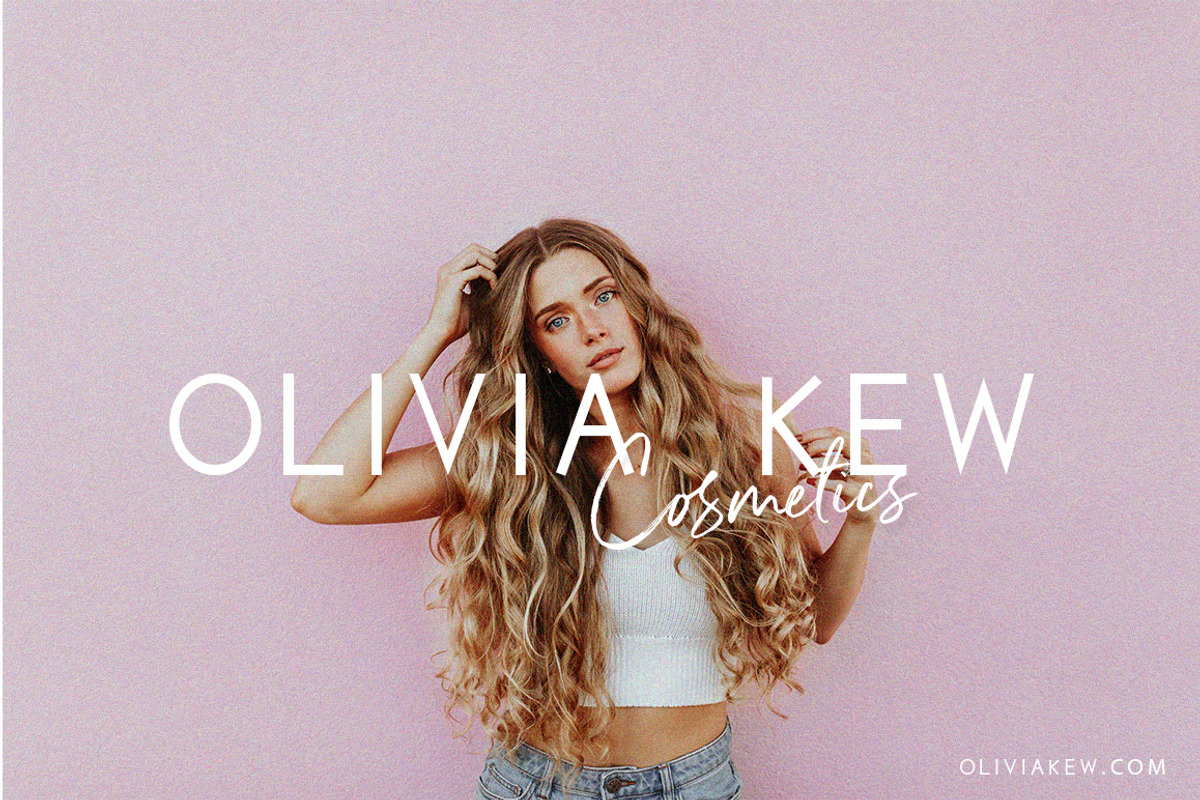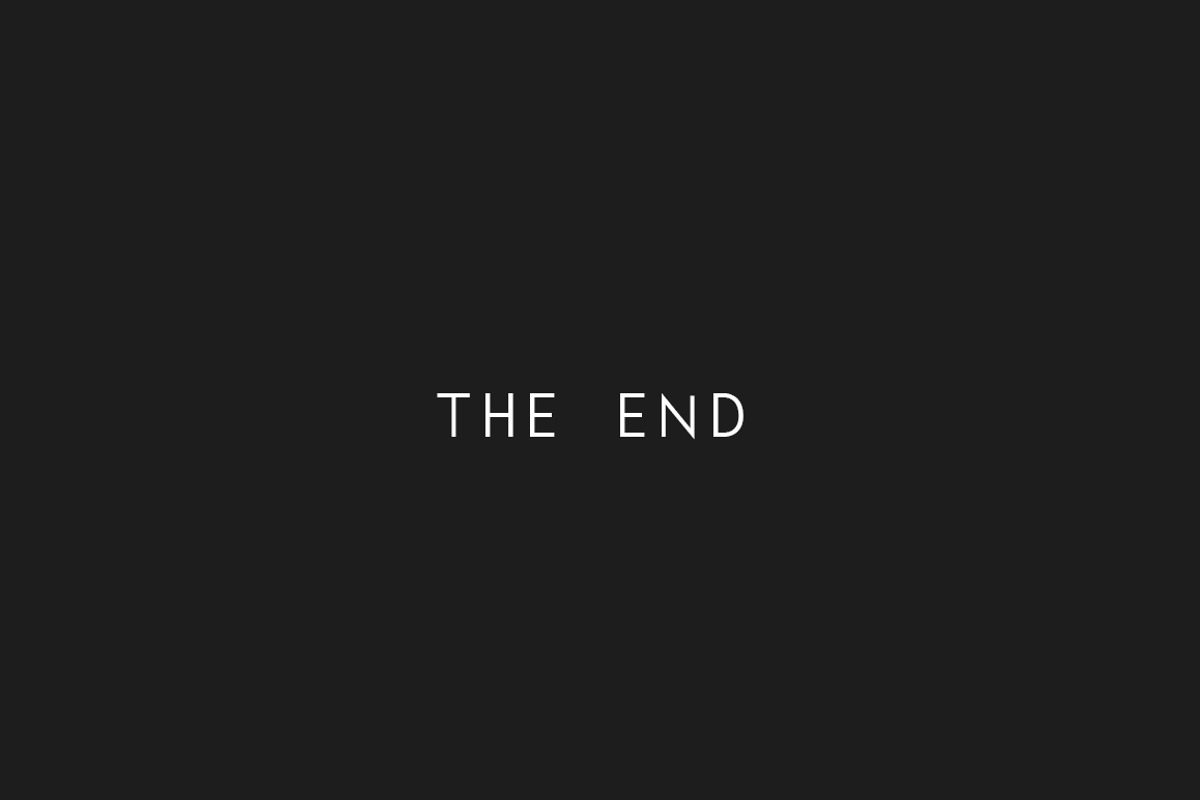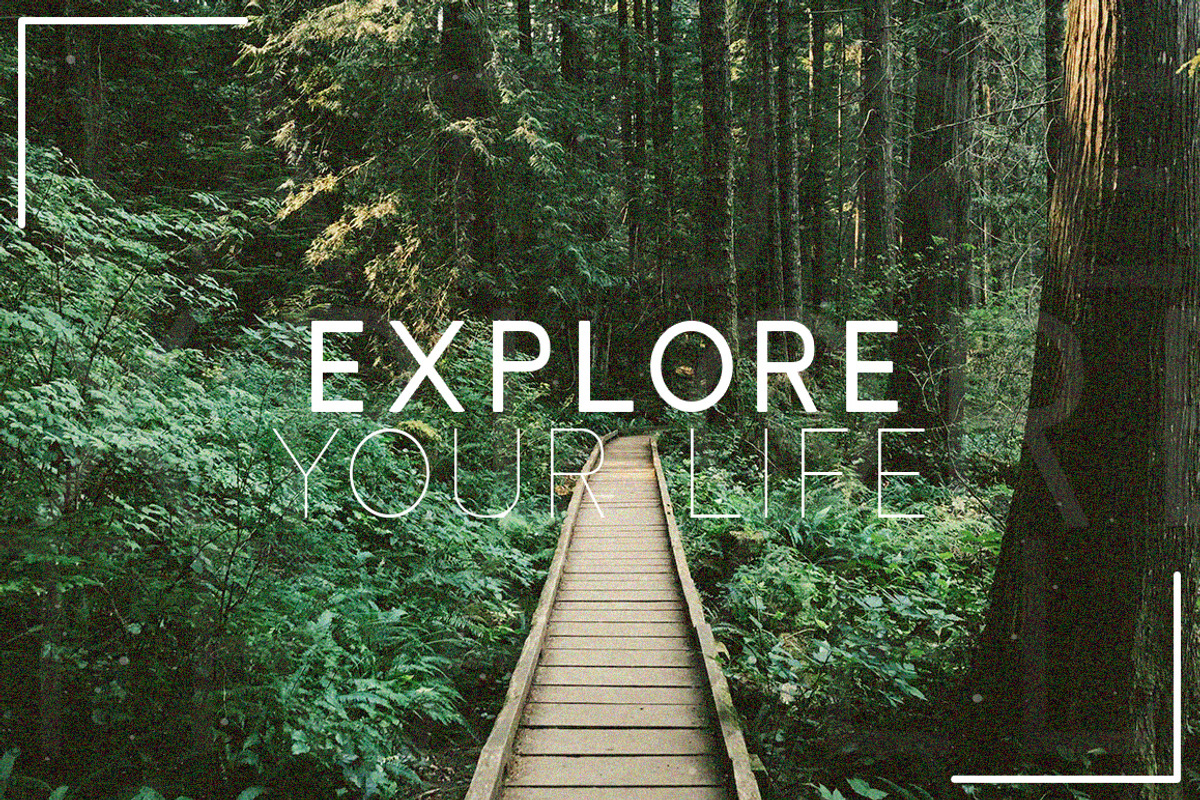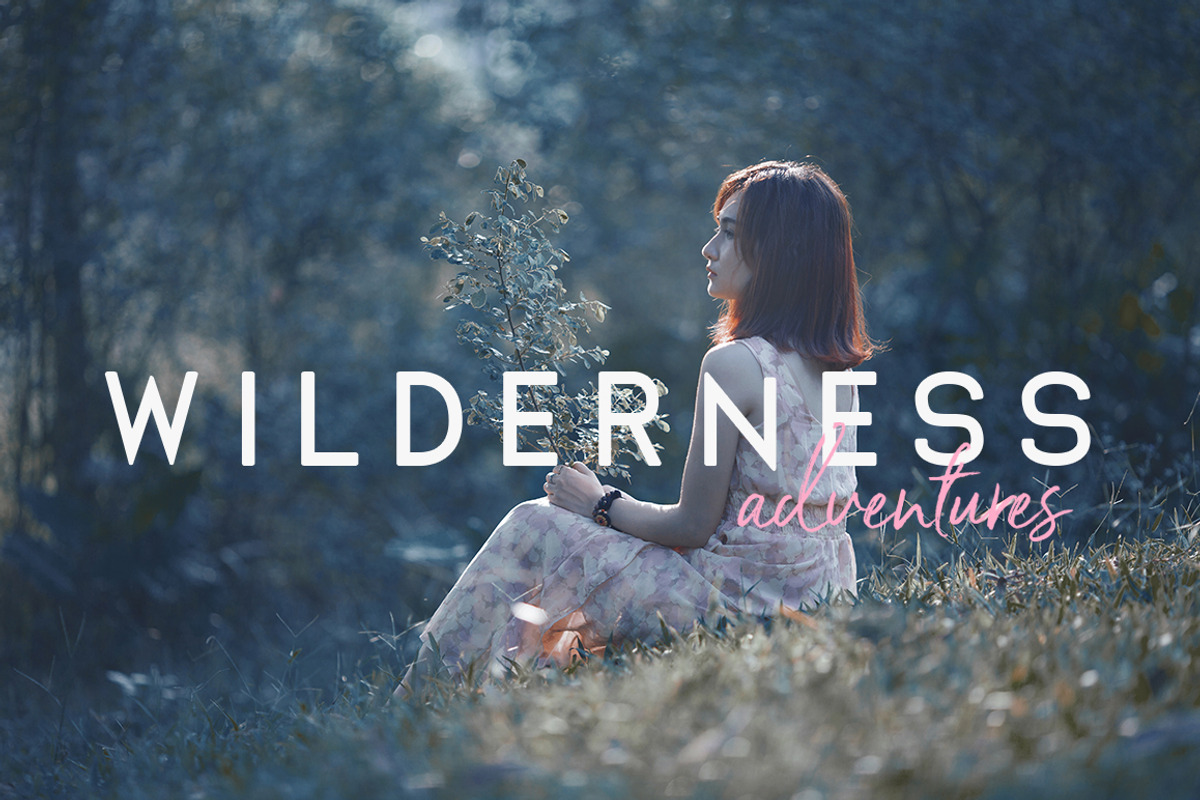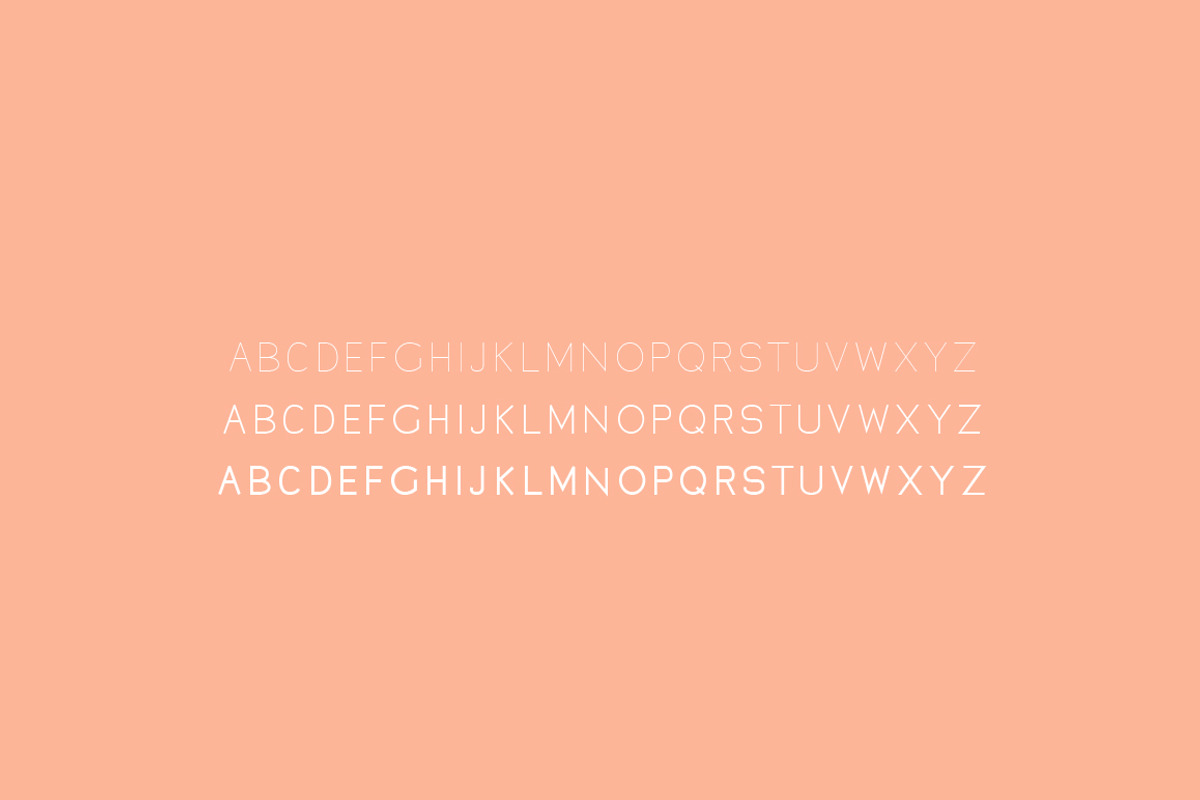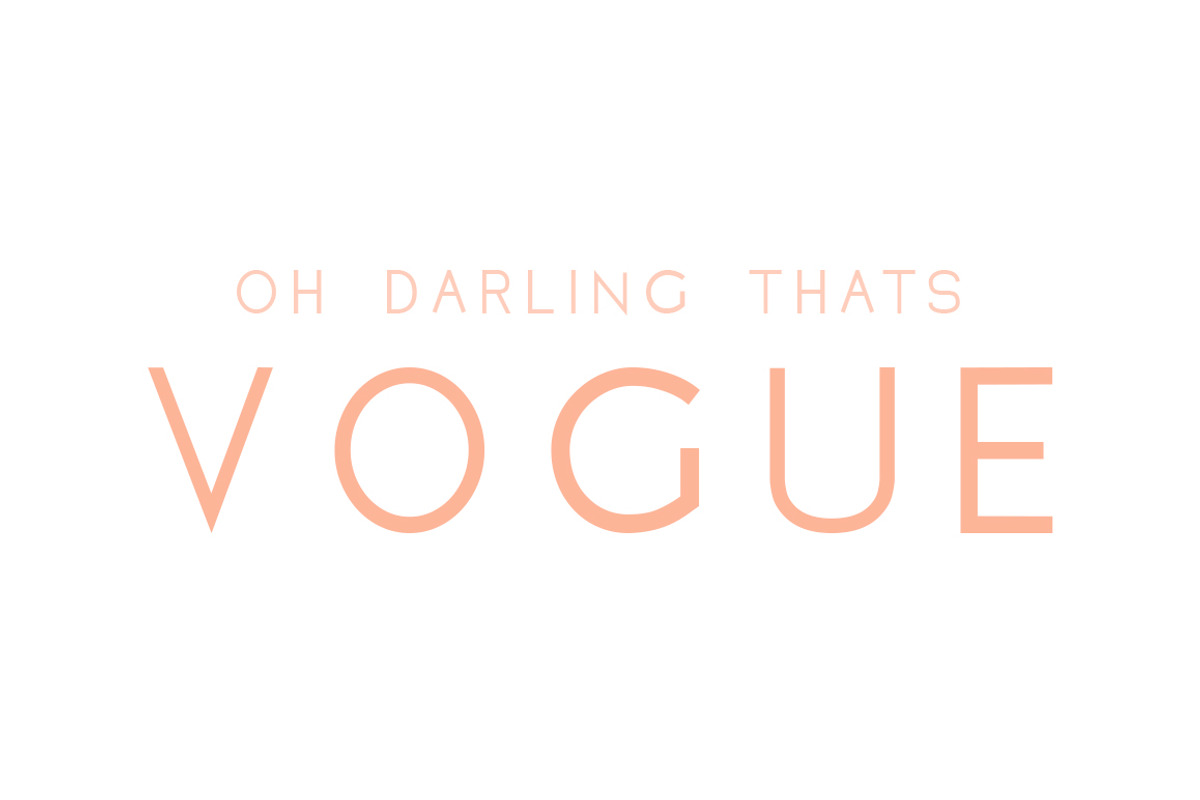
Oliver Font - 3 Weights Included
Oliver is here! Let him lift your work to a classier and more modern level. The perfect font to use for continuity as there are three weights included. Bold for your striking headers, regular for your important details and light for your block text. Oh, and he looks rad on logos too! Enjoy!